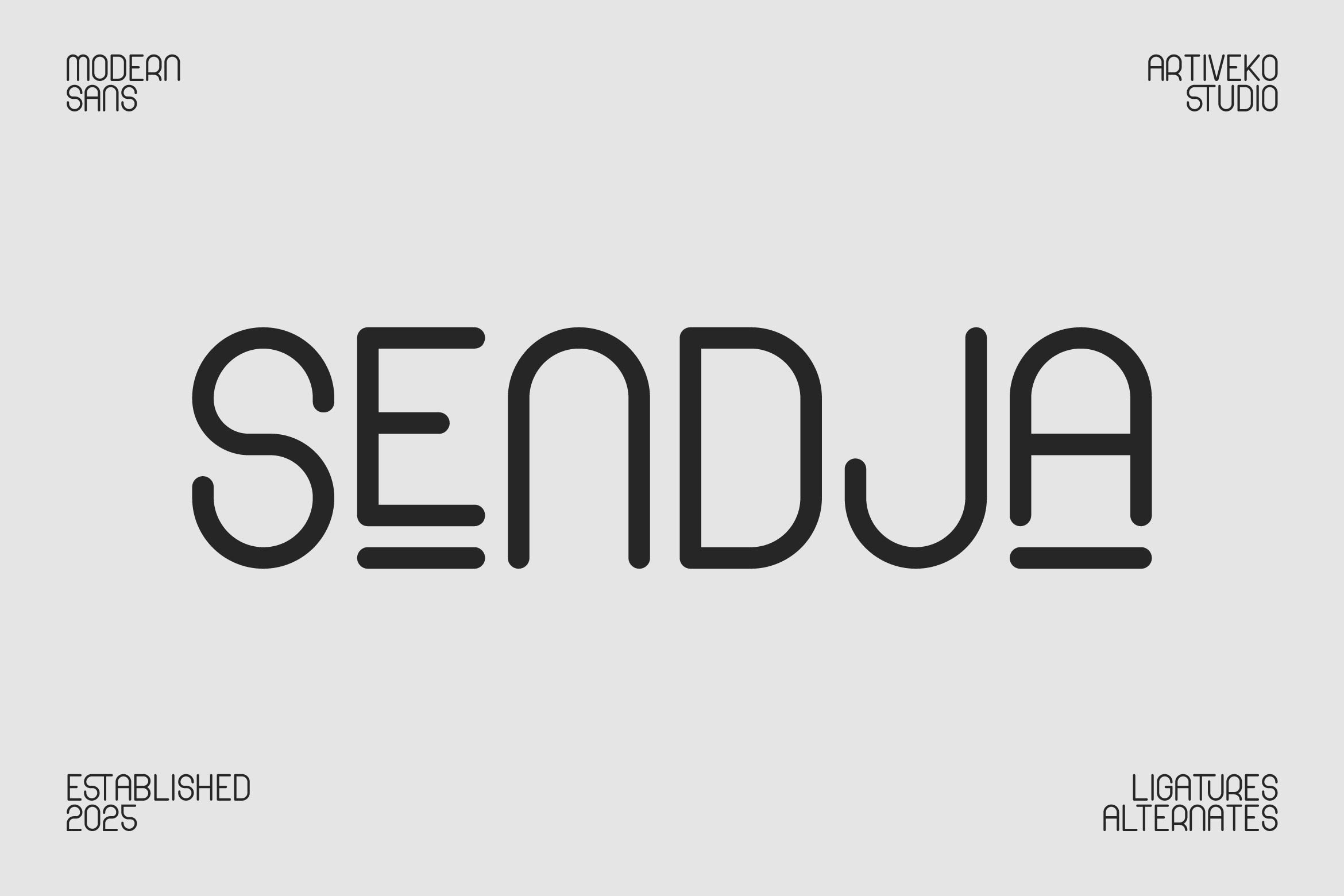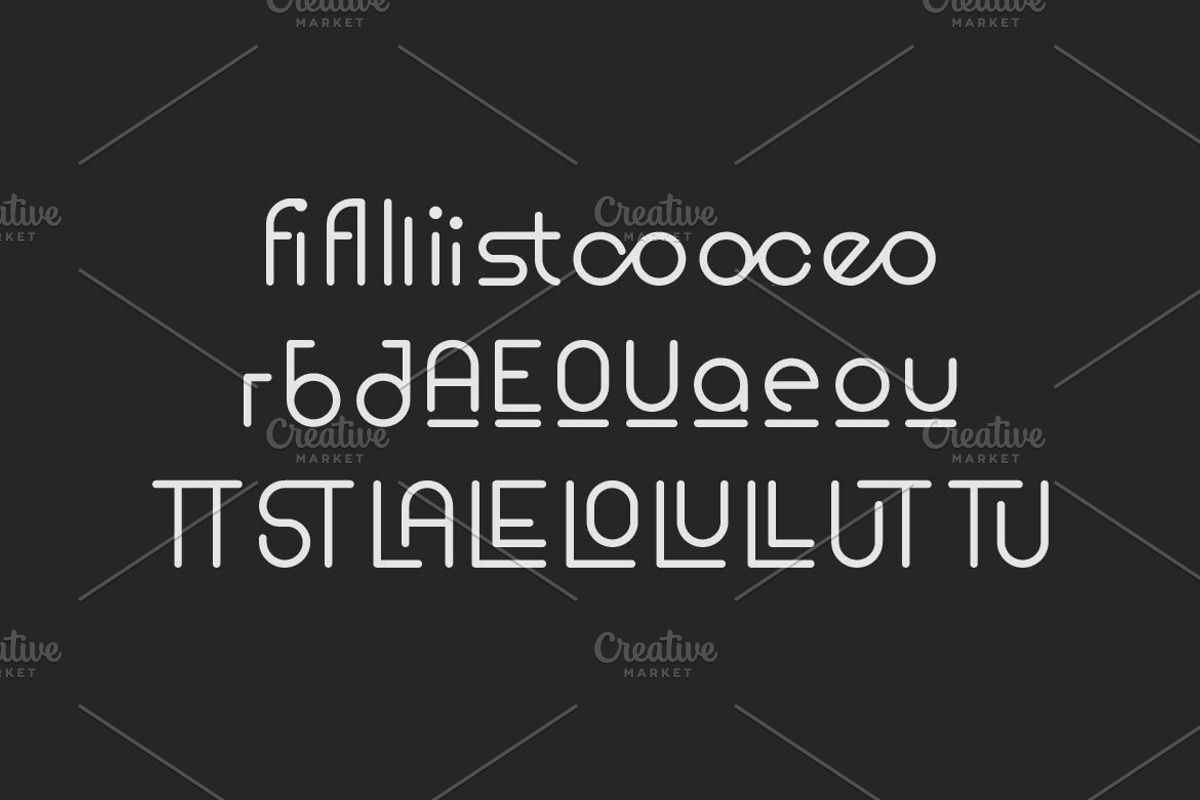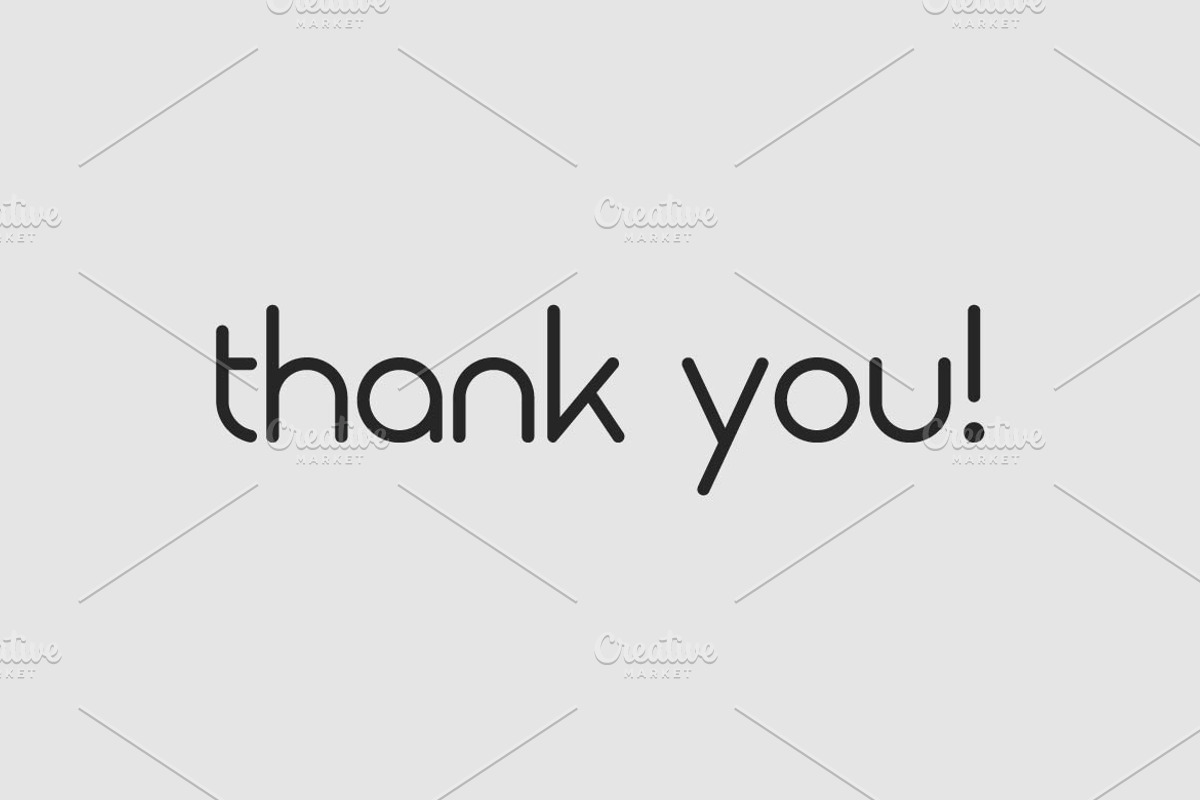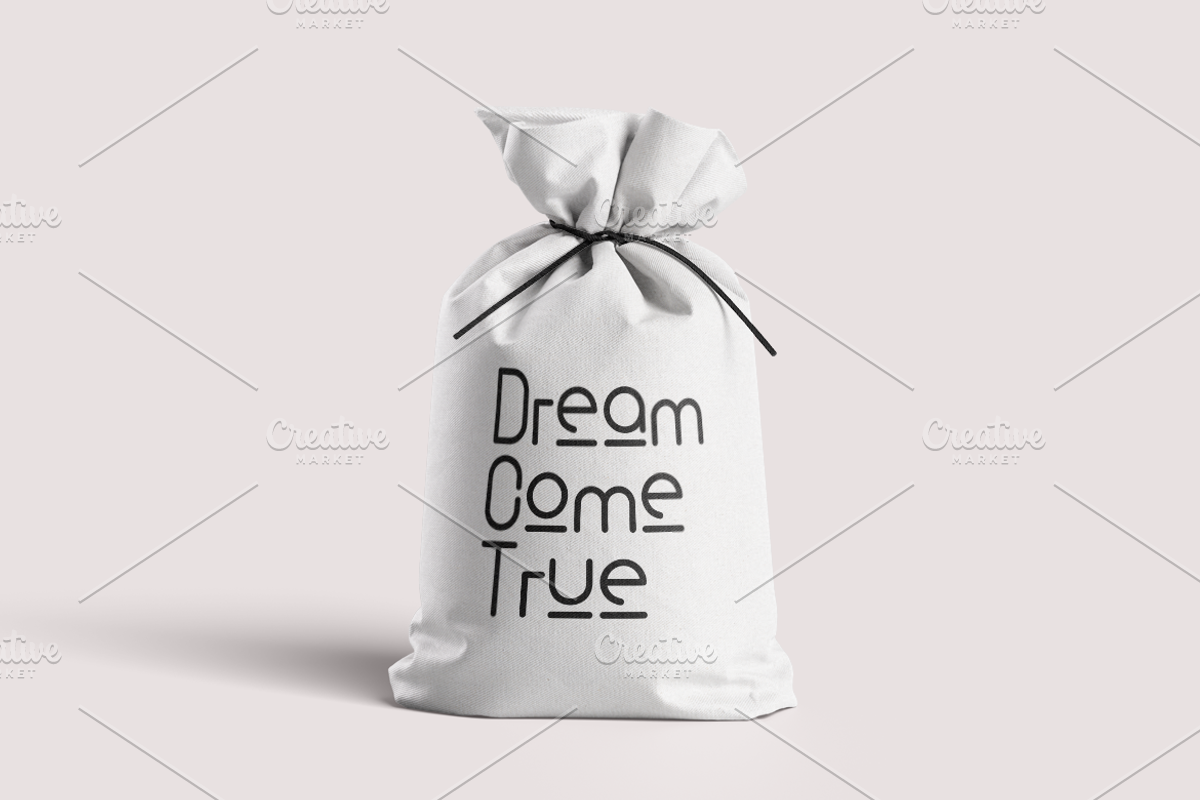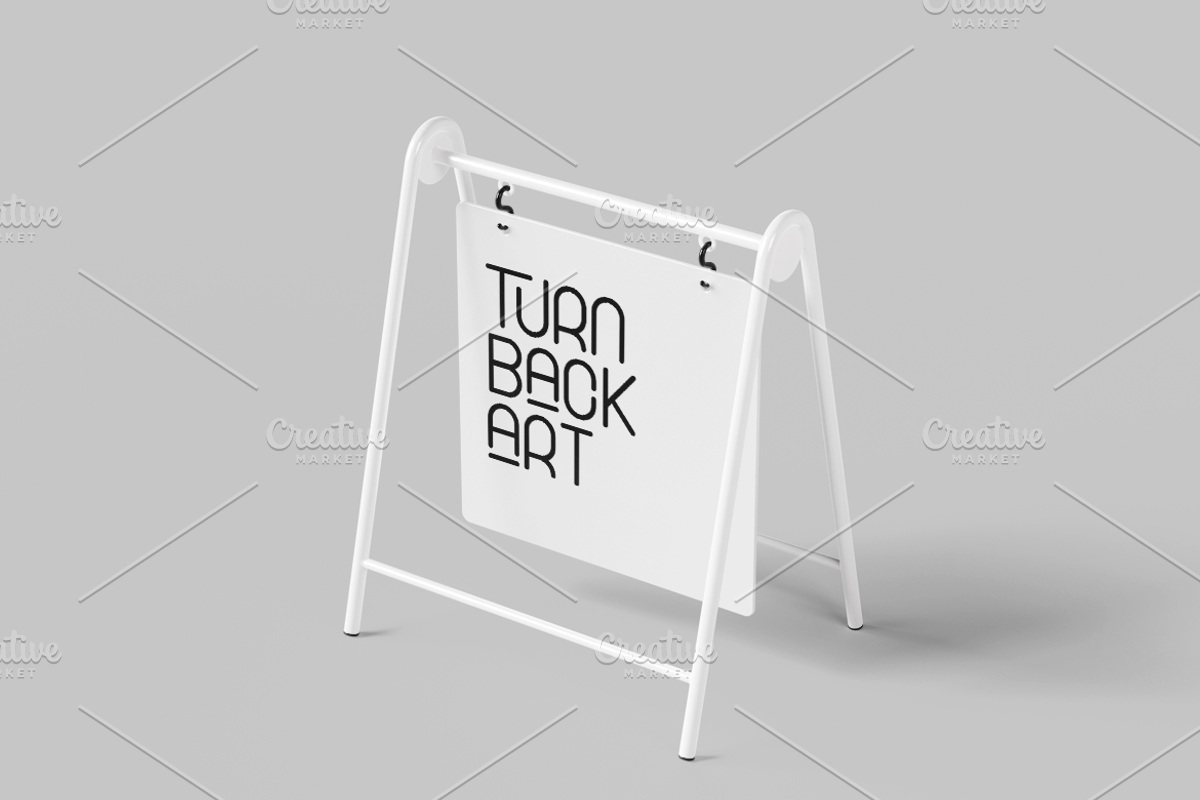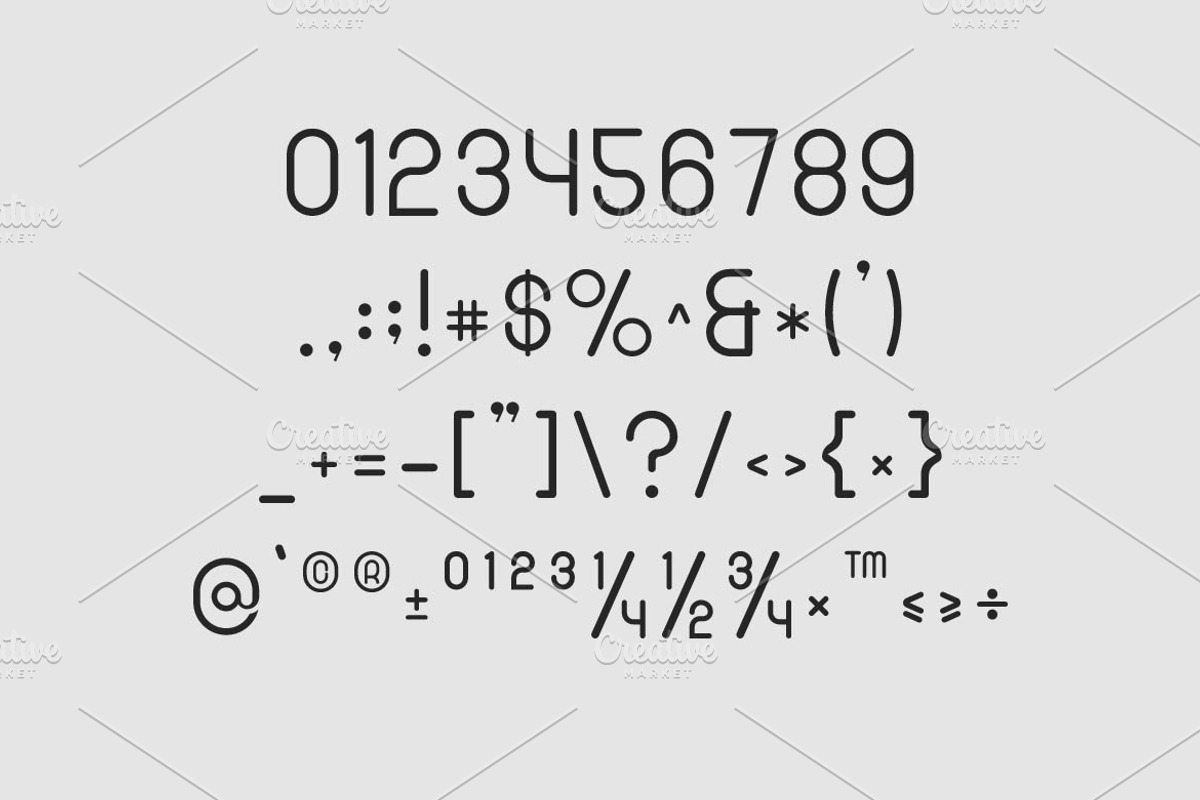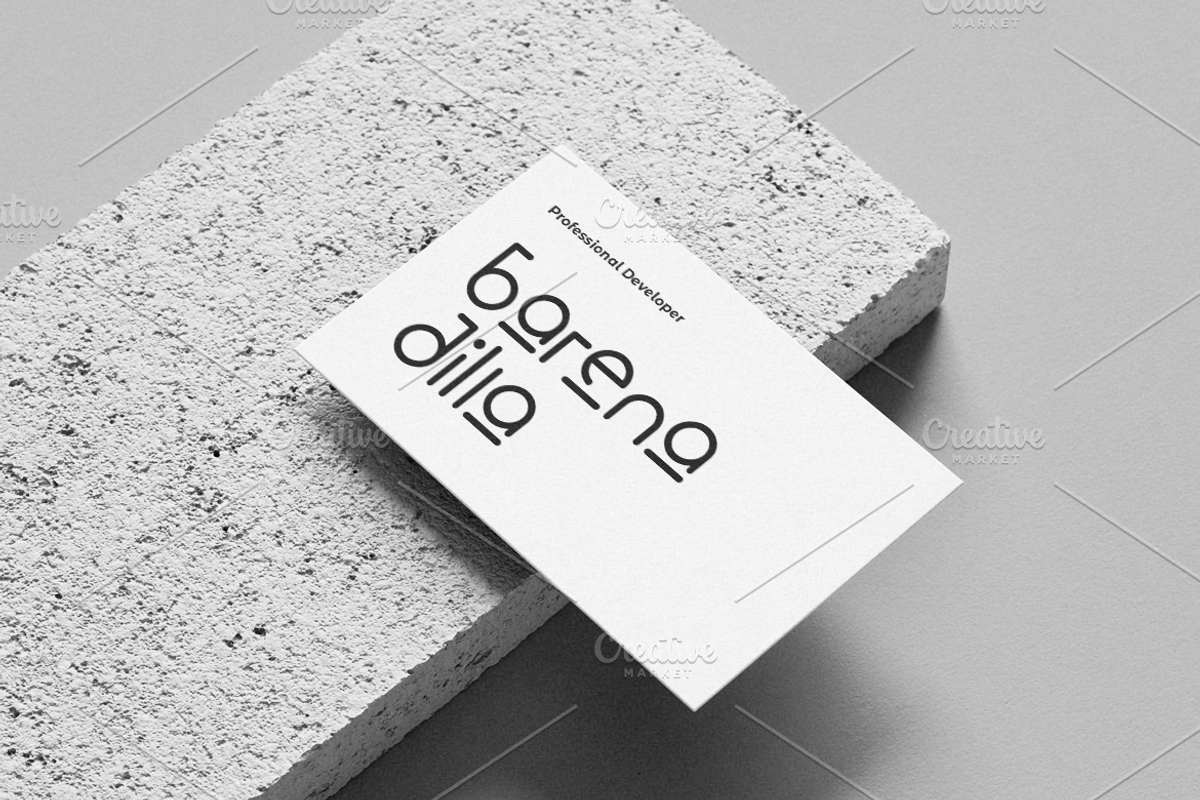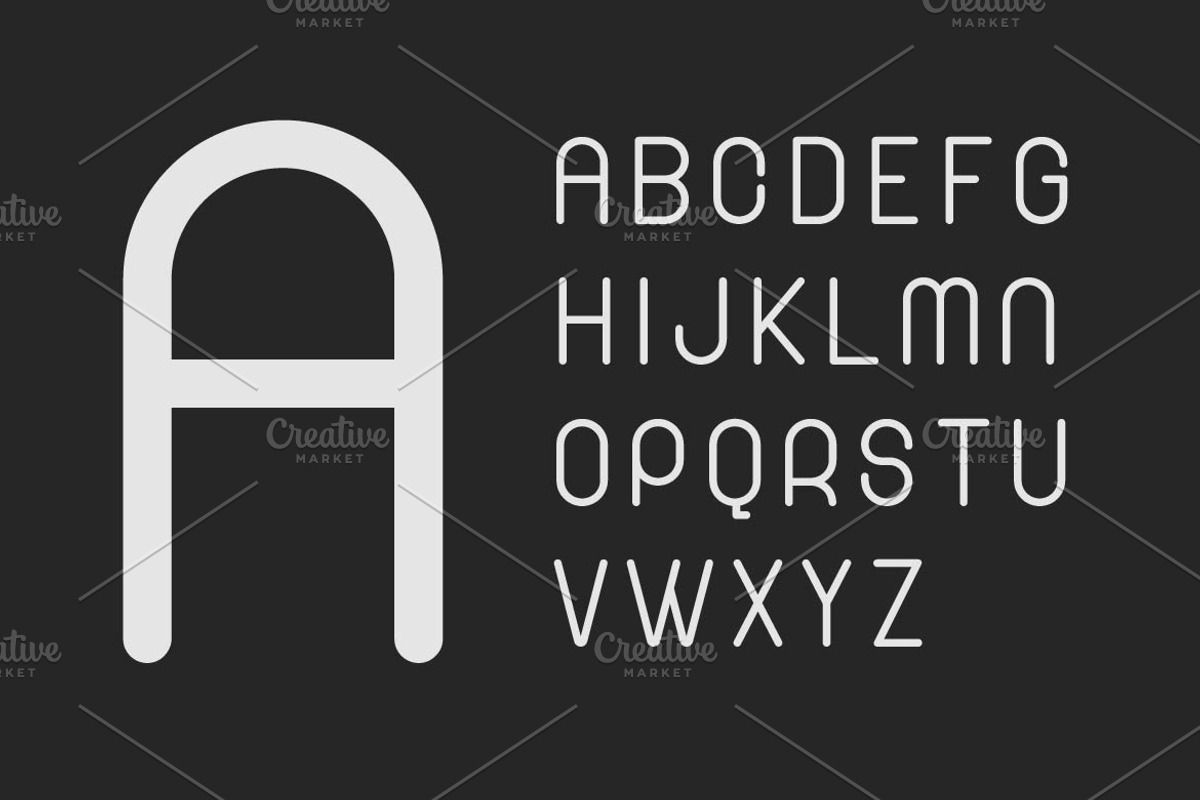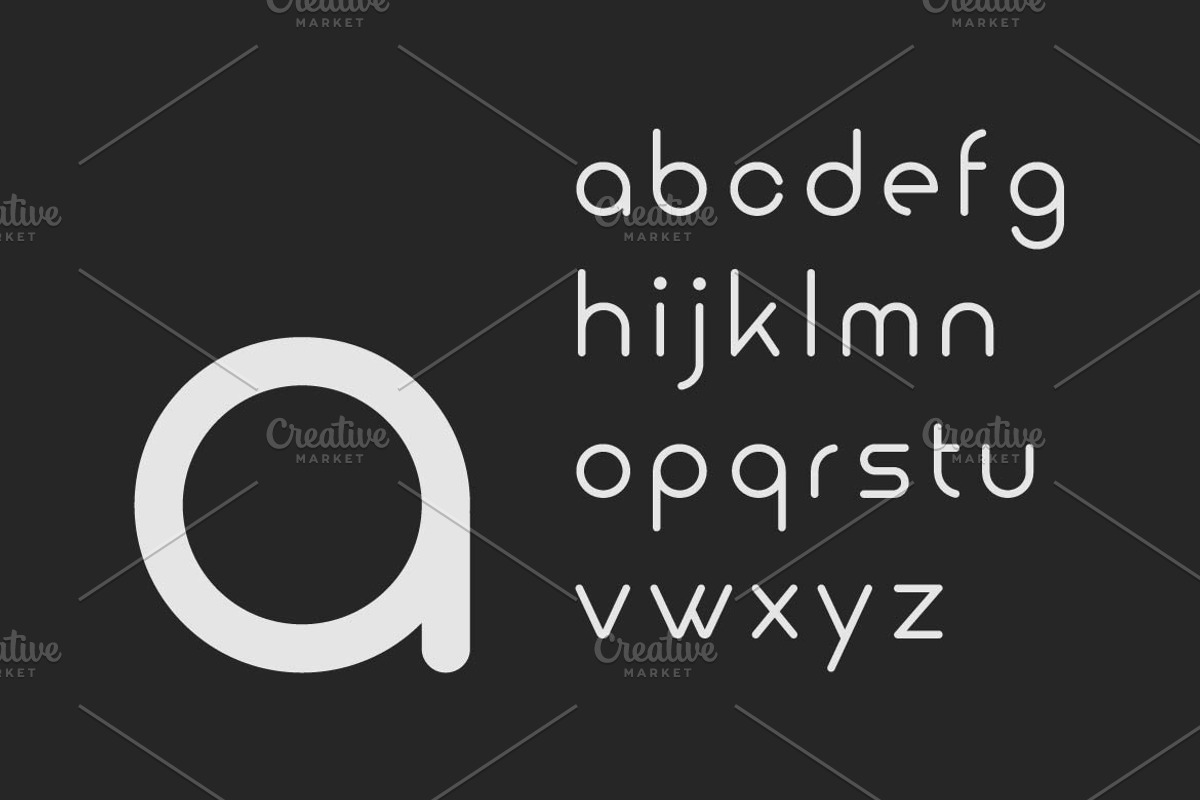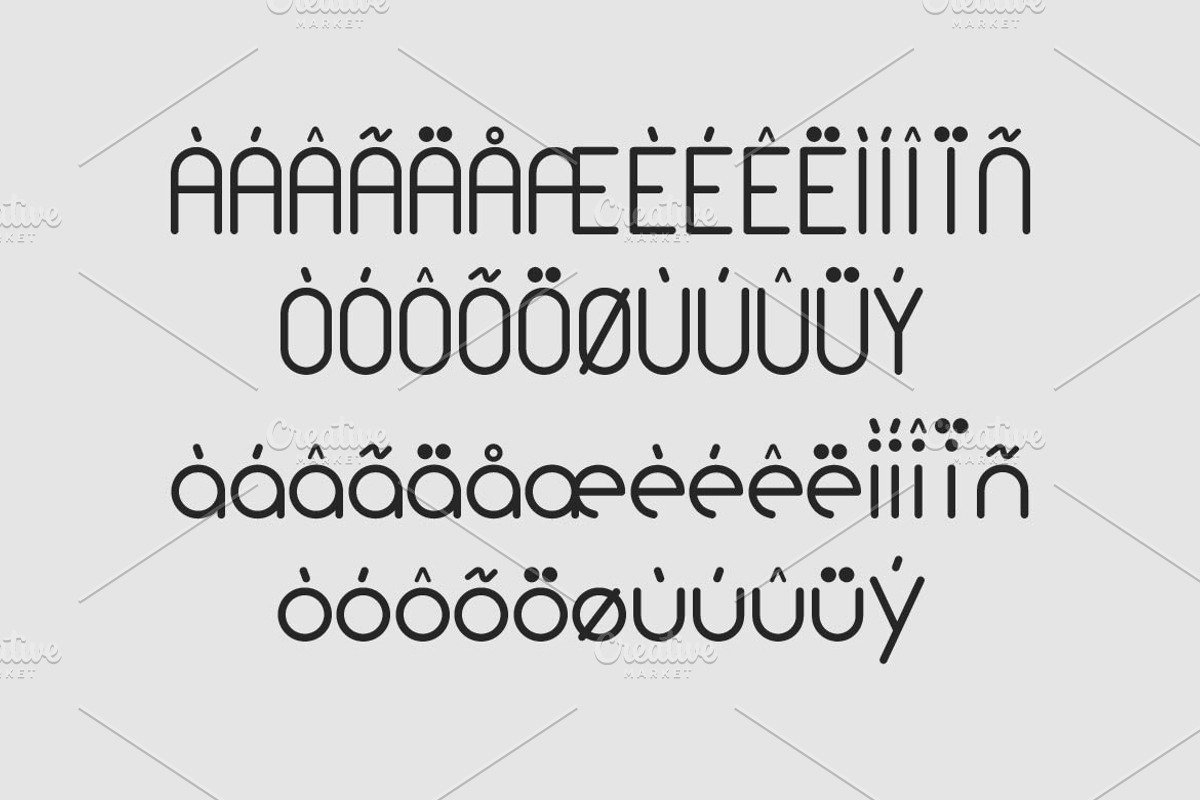
Sendja Minimalist Sans Font
Sendja is a minimalist sans serif font by Iwan Alwan, featuring clean, modern letterforms with a sleek and timeless aesthetic. Perfect for branding, editorial design, web interfaces, and corporate identities, Sendja embodies simplicity and elegance. With multilingual support, ligatures, and alternates, this versatile typeface ensures clarity and sophistication, making it an ideal choice for projects that prioritize minimalism and refinement.